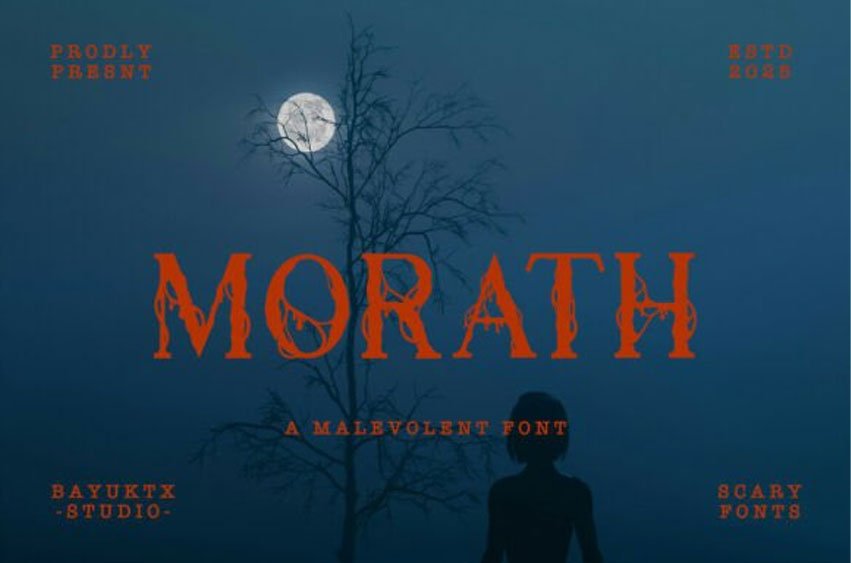
Morath Font is a dark and sinister serif typeface that bleeds with character. Its twisted veins and dripping details create a haunting yet elegant appearance, blending gothic artistry with refined serif structure. Inspired by horror movie titles and cursed manuscripts, Morath delivers an atmosphere of fear, mystery, and power in every letter.
The sharp edges and organic vein-like textures give this font a uniquely malevolent personality — perfect for horror posters, dark branding, metal album covers, or Halloween-themed projects that demand intensity and visual drama.
t into a statement of darkness and design mastery.